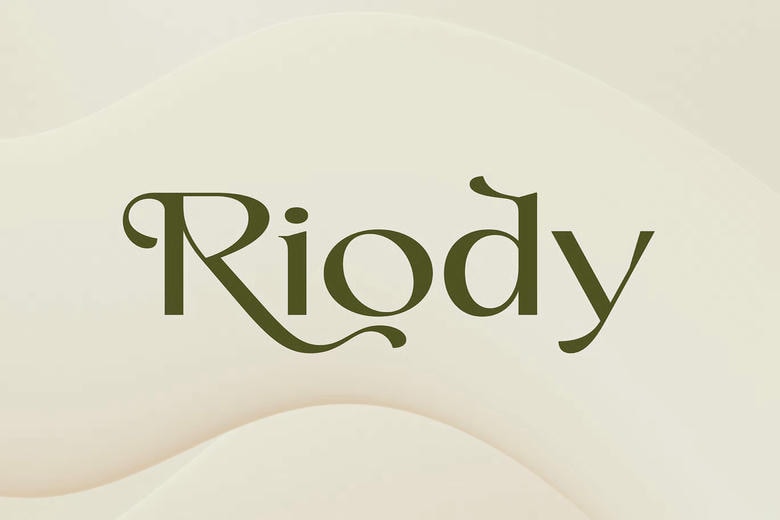
Riody Font
Riody is a bold statement using our new sans-serif font. This font is bound to impress and get attention due to its clean lines and modern look. Ideal to headlines, logos and design that requires attention. It is practical as well as stylish and hence can be applied in a large variety of design projects.
Riody Sans Serif Font